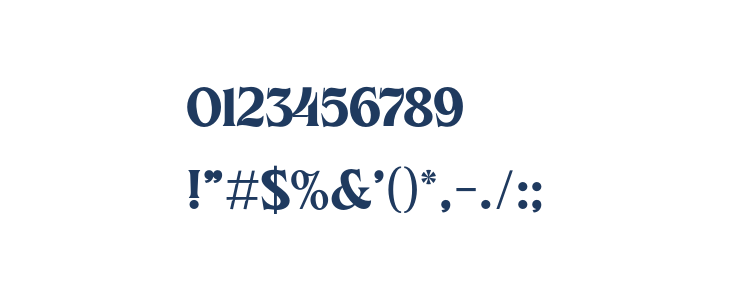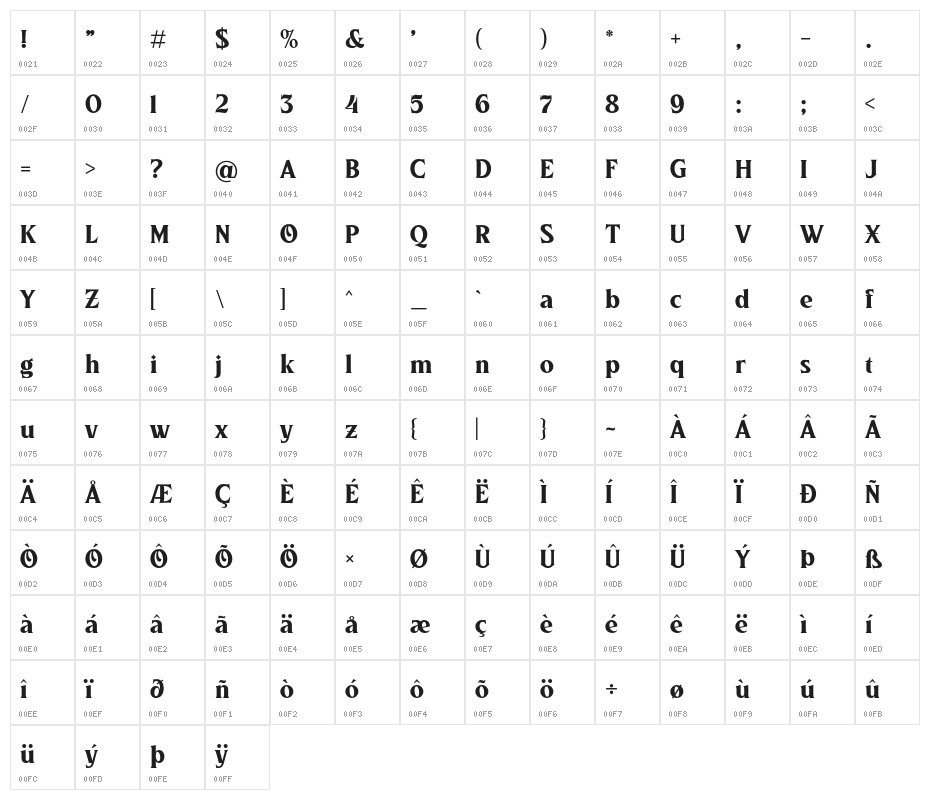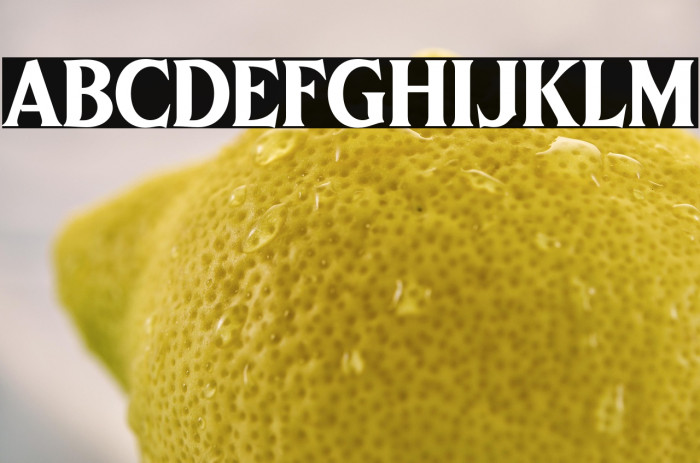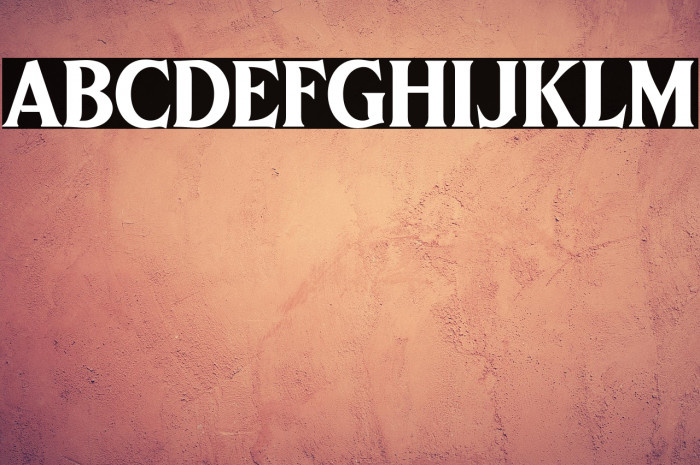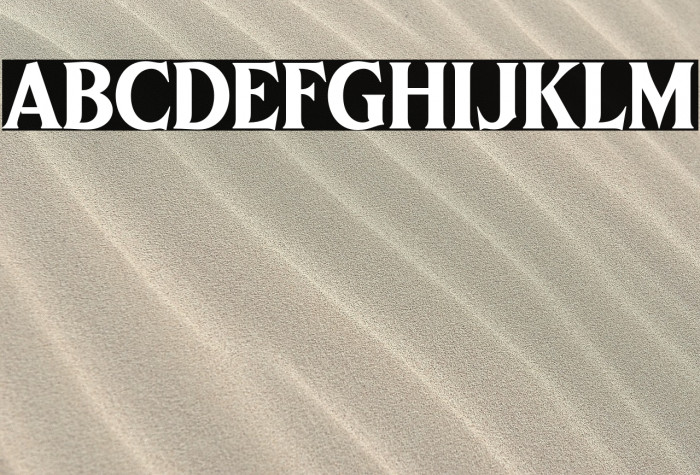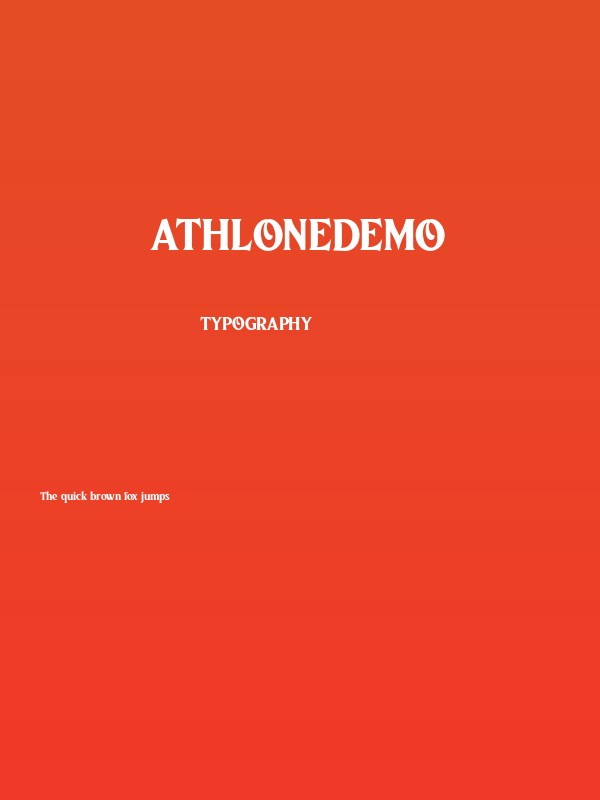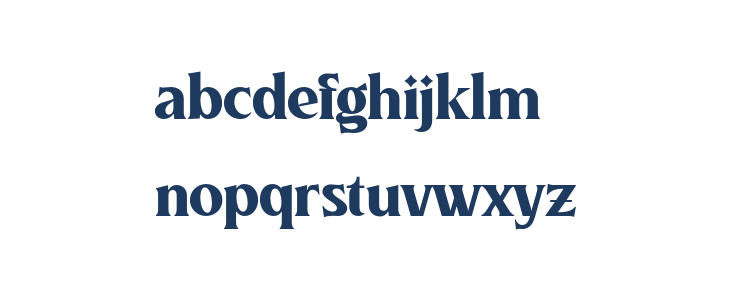
AthloneDEMO Font
AthloneDEMO Description
This font features a bold and dramatic style with high contrast between thick and thin strokes. The uppercase letters are particularly striking, with sharp serifs and a strong presence. The lowercase letters maintain a consistent style, offering a cohesive look across different text sizes. Numbers are clear and well-defined, making them suitable for display purposes. Special characters are designed with the same attention to detail, ensuring they integrate seamlessly with the rest of the font. Overall, this font exudes a sense of elegance and authority, making it ideal for impactful headlines and branding.